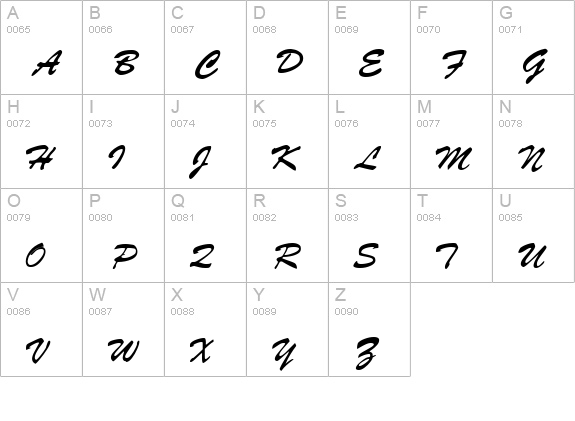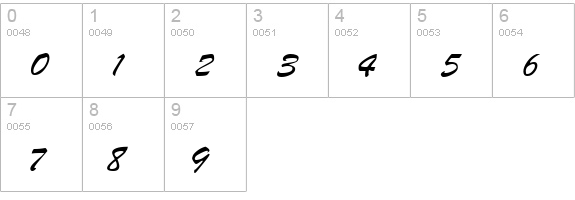
Style Regular Font Details
Style Regular is the standard, neutral variant in the Style typeface family \xE2\x80\x94 well suited to general body text, paragraphs, and standard typographic work.